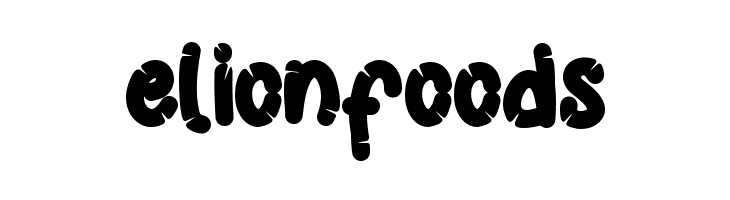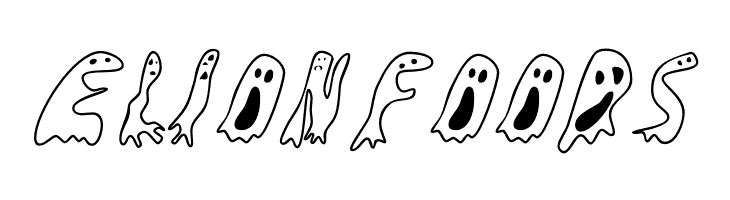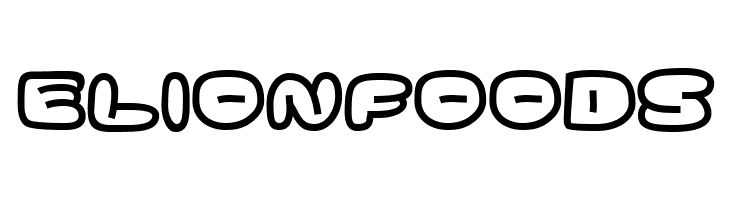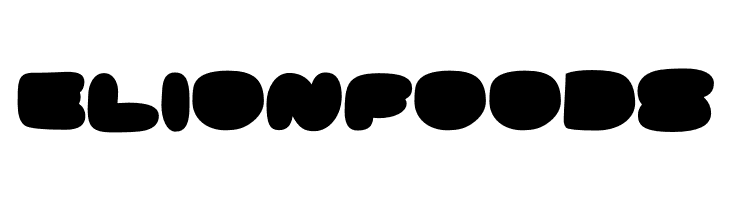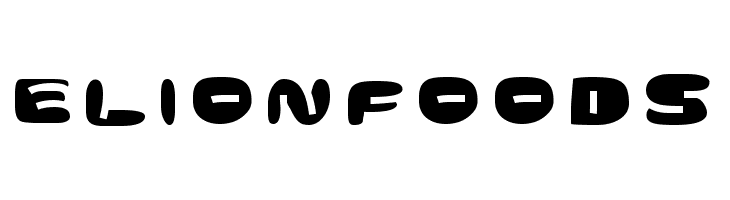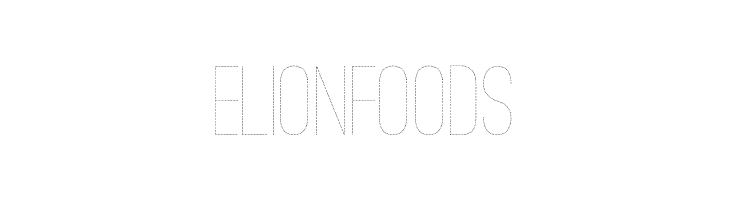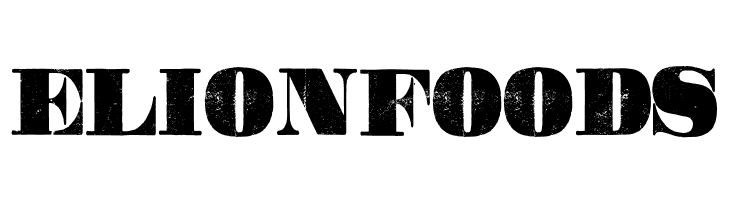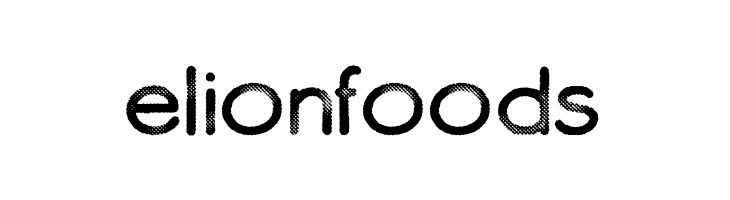
A bold, playful font with thick, rounded strokes and a lively appearance.
A playful, ghost-themed decorative font with unique character designs.
A playful, bold font with rounded, bubble-like characters and outlined style.
A bold, playful font with rounded, bubble-like characters.
A bold, playful font with rounded edges and a quirky, retro-modern style.
A bold, distressed font with a hand-crafted, cut-out appearance.
A modern, geometric font with a bold, double-line style for high legibility and impact.
A modern, dashed line font with a minimalist and airy design.
A bold, distressed font with a vintage, rugged aesthetic.
A bold, textured font with a retro, playful style.